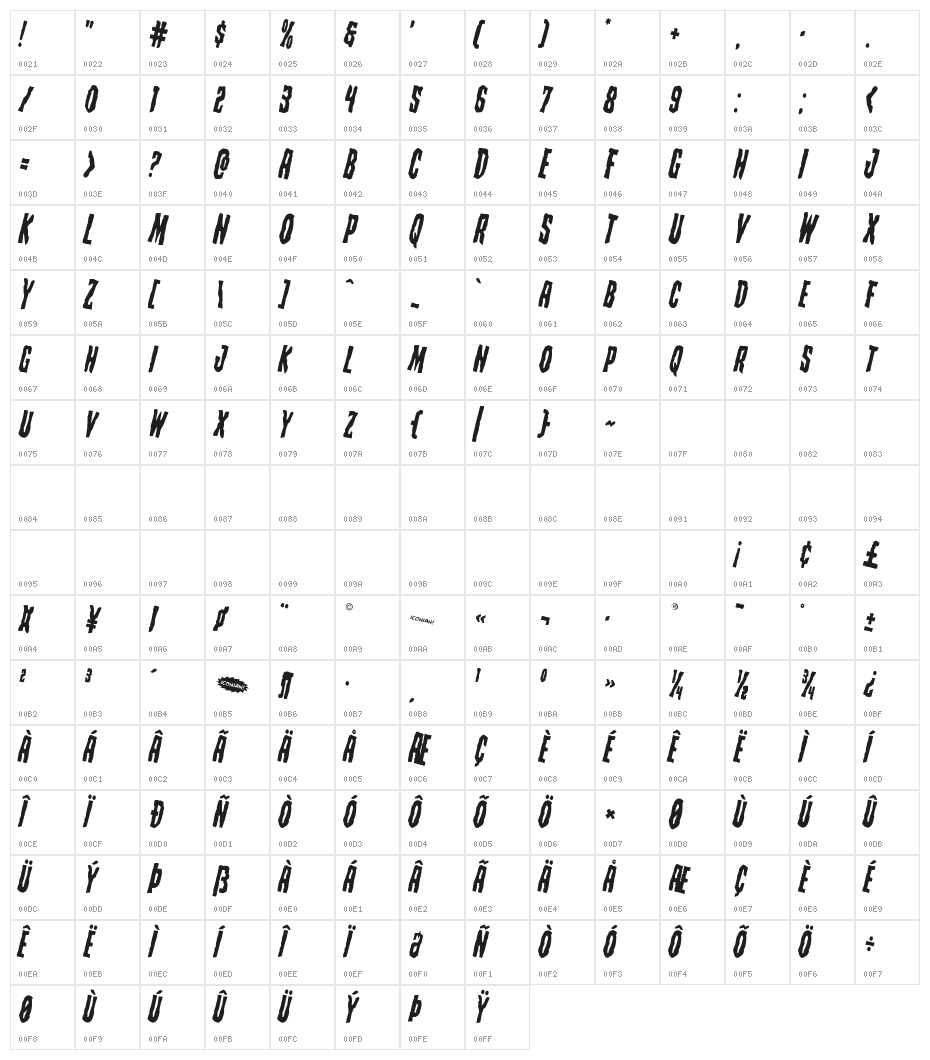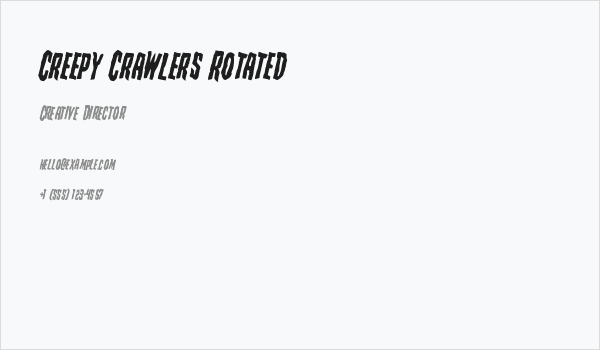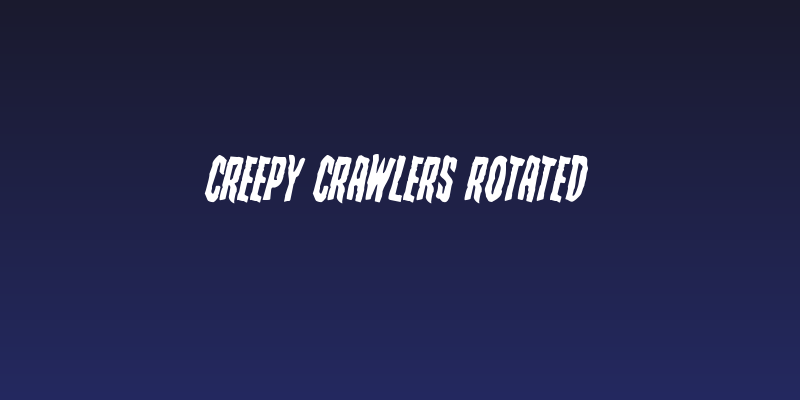
Creepy Crawlers Rotated Font
Creepy Crawlers Rotated Description
This font features a bold and jagged design, reminiscent of horror or Halloween themes. The letters are slightly tilted, giving a dynamic and unsettling appearance. The strokes are uneven, with a rough texture that adds to the eerie aesthetic. This style is perfect for creating a sense of urgency or fear, making it ideal for themed events or projects that require a spooky touch. The characters are tightly spaced, enhancing the chaotic feel of the font. Its unique style makes it stand out, capturing attention with its bold presence.
| Proposed Projects | Ideal for Halloween posters, horror movie titles, themed event invitations, and spooky-themed merchandise. |